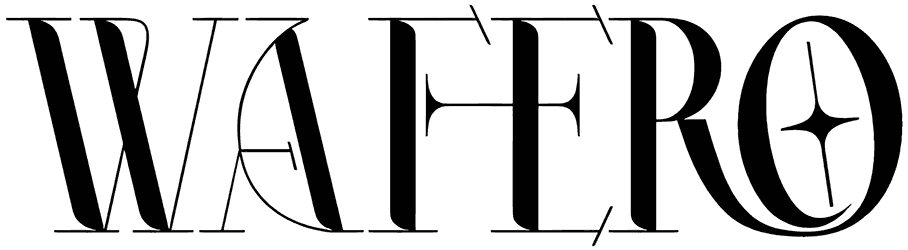
Wafero Font
Introducing another fancy font for your luxury projects, we can’t wait to help you design more professionally with Wafero. Ready to present your business to the world with plenty of elegance, this serif font will be a key element in your future branding designs from now on.
You can take advantage of its stylishness in your aesthetic logos for lingerie, fashion shows, websites for cosmetic brands, interior design ideas, and so on. However, the supported numbers are unfortunately very limited.